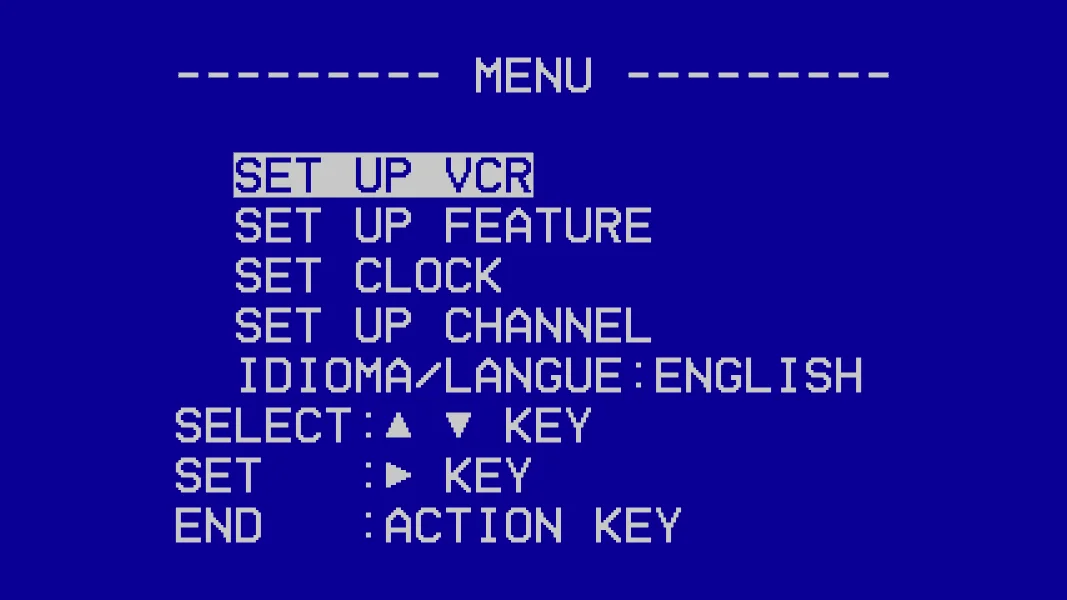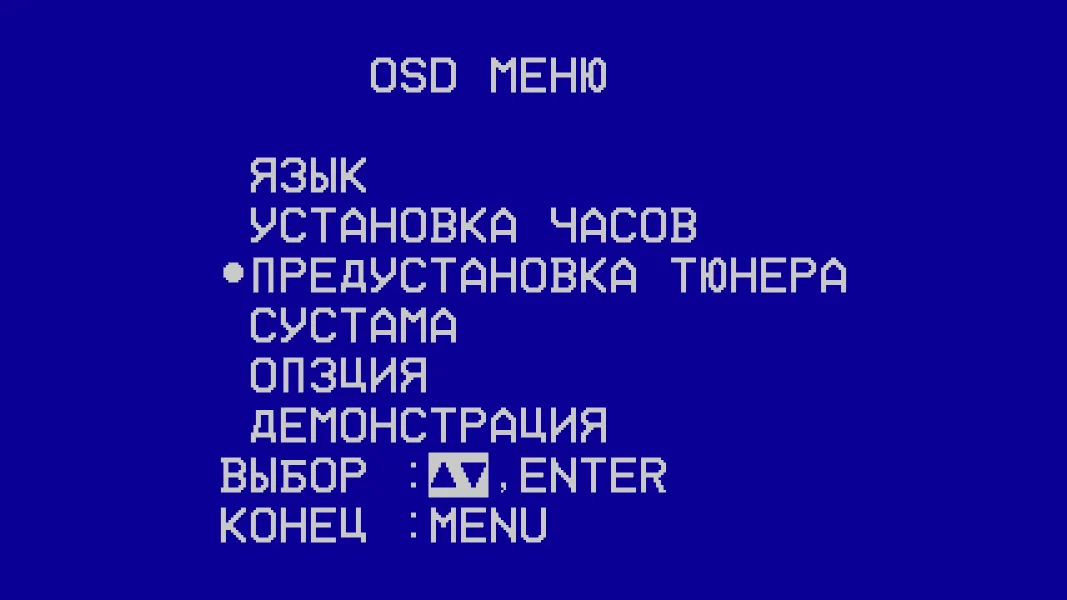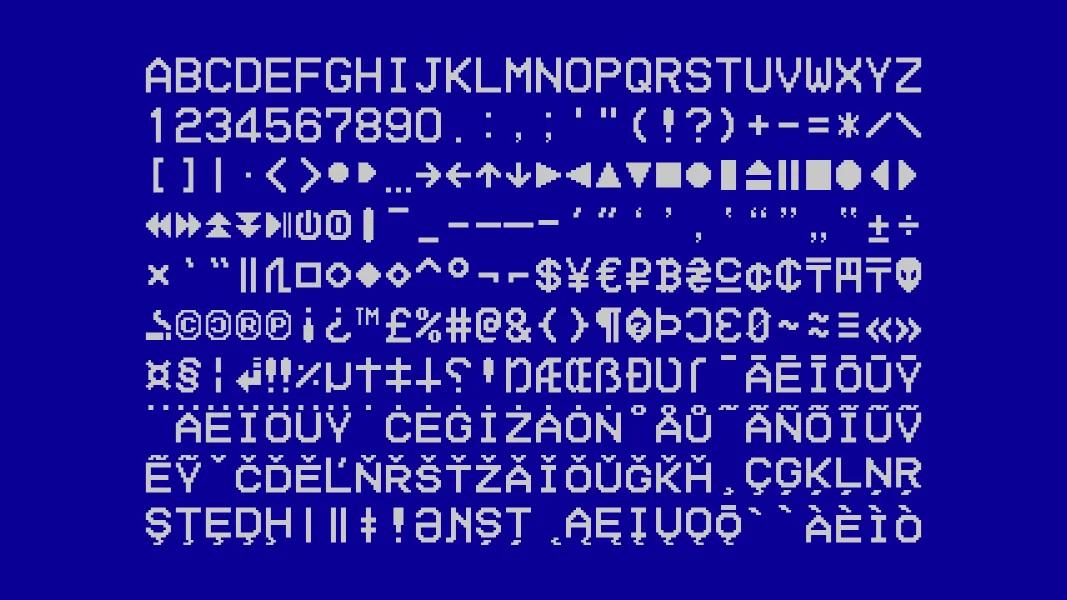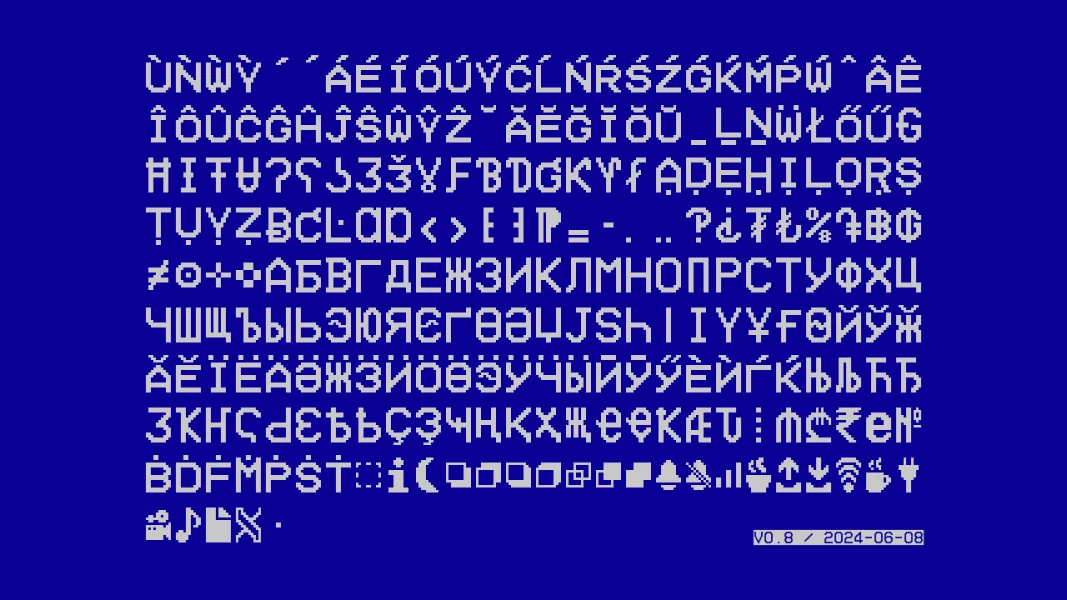
Home Video is a nostalgic handwritten display font inspired by the imperfect charm of old VHS recordings and camcorder title screens. Its loose, marker-like strokes and uneven baseline create an authentic homemade feel, balancing casual simplicity with retro personality.
The characters feature rounded edges, slightly inconsistent proportions, and a naturally quick rhythm that mimics handwritten labeling on videotapes or family recordings. The font feels warm, personal, and a little lo-fi, making it especially effective when paired with vintage aesthetics or analog-inspired visuals.
Ideal for retro branding, YouTube thumbnails, scrapbook designs, social media graphics, indie posters, album artwork, and nostalgic packaging, Home Video brings a relaxed and emotional tone that feels both familiar and expressive.